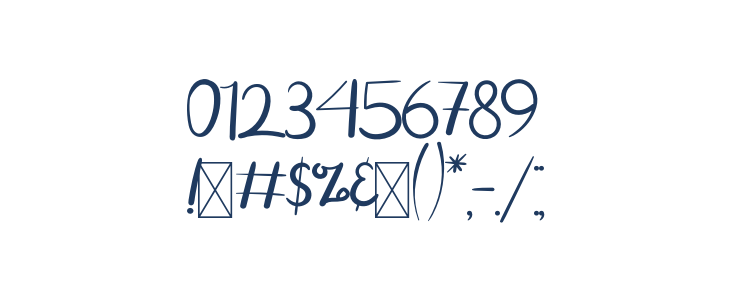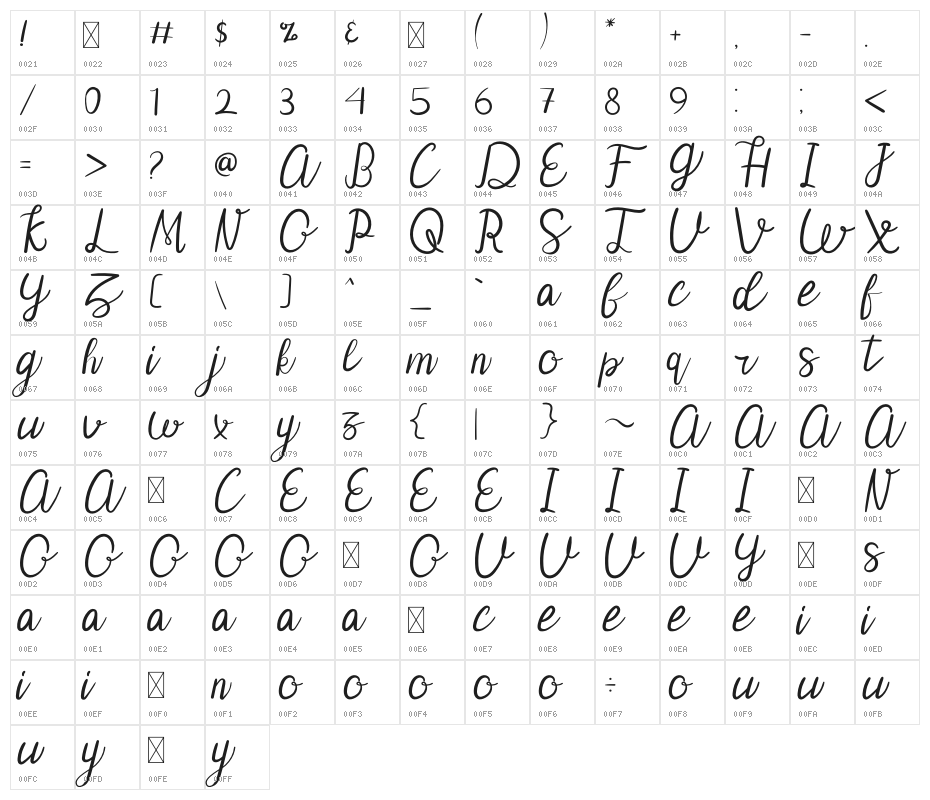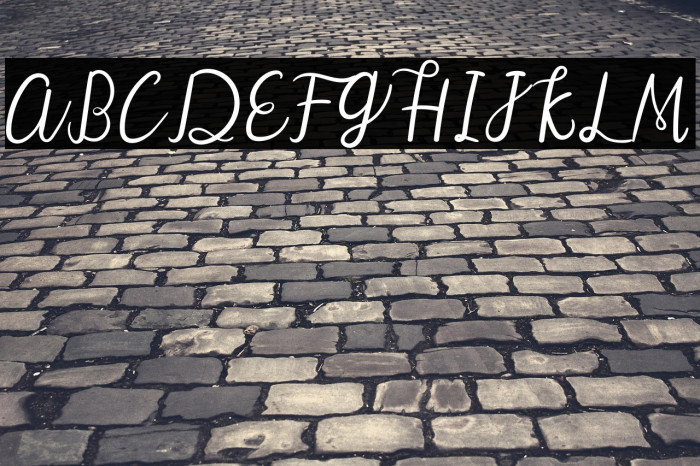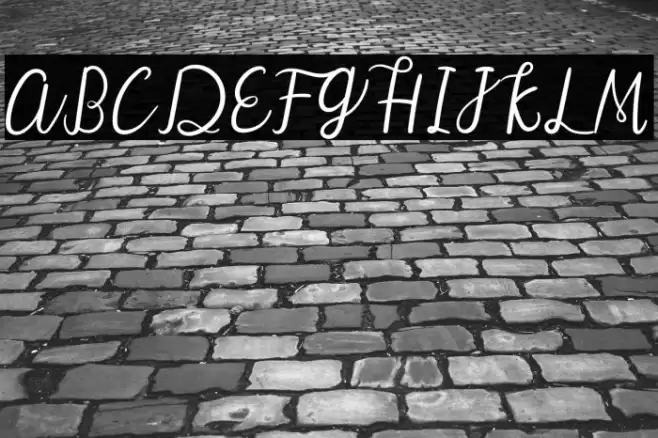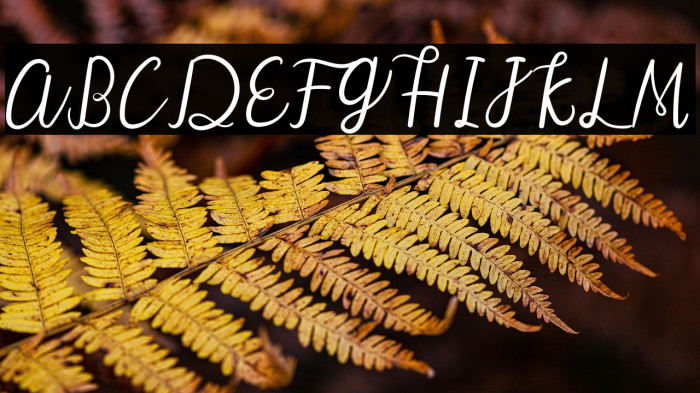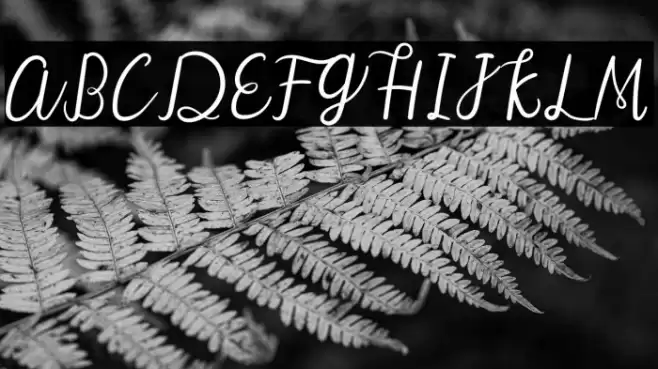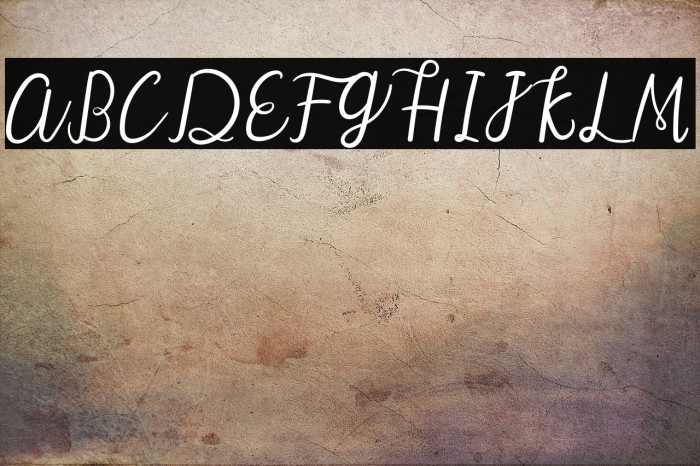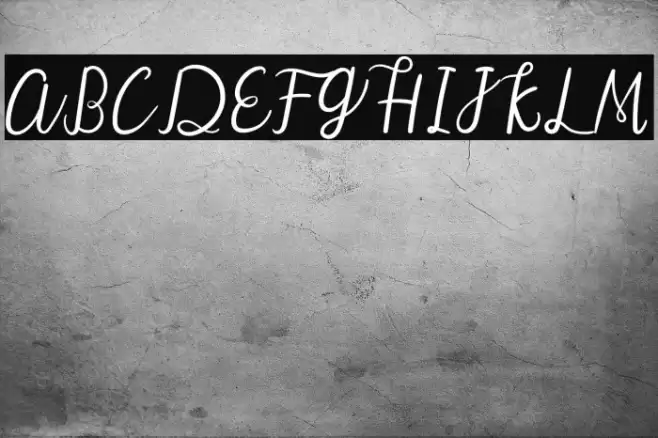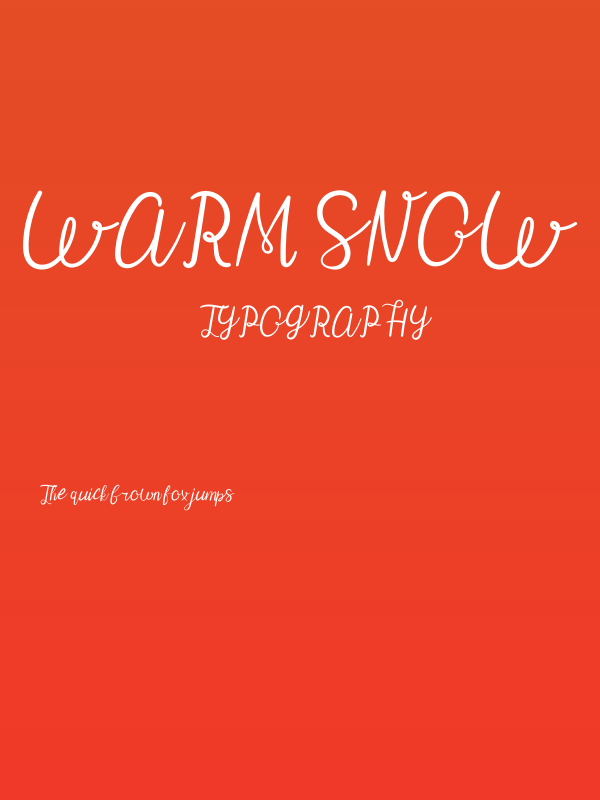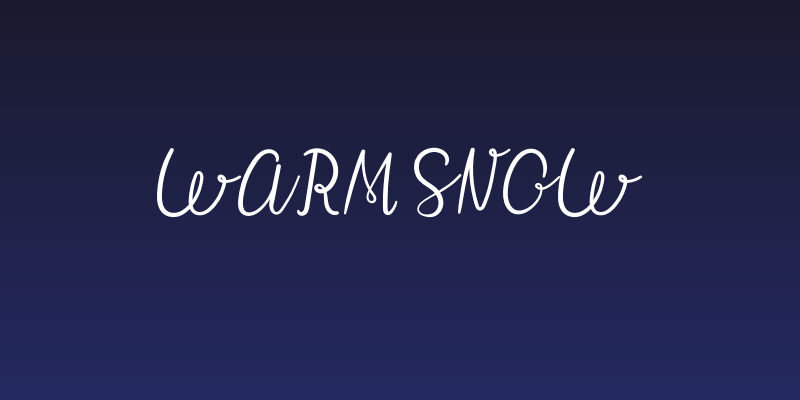
Warm Snow Font
Warm Snow Description
This font features a lively and flowing script style, characterized by its smooth, cursive strokes and elegant loops. The uppercase letters are slightly more formal with a consistent slant, while the lowercase letters exhibit a playful and dynamic quality. The numerals are clear and maintain the same fluidity as the letters, ensuring readability. Special characters are designed with the same attention to detail, integrating seamlessly with the overall aesthetic. This font exudes a sense of warmth and creativity, making it ideal for projects that require a personal touch.